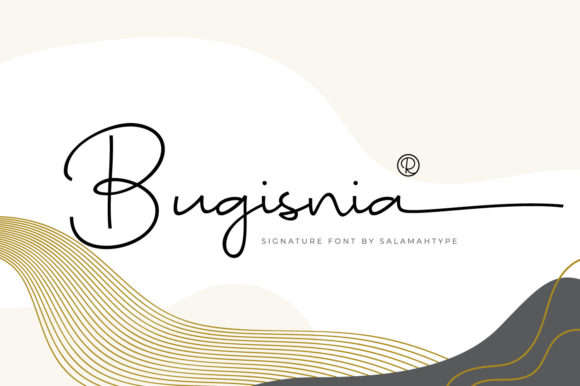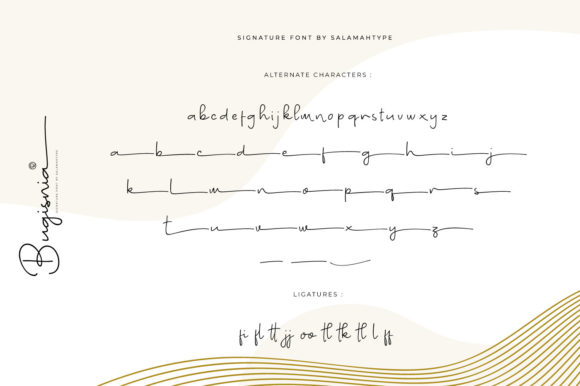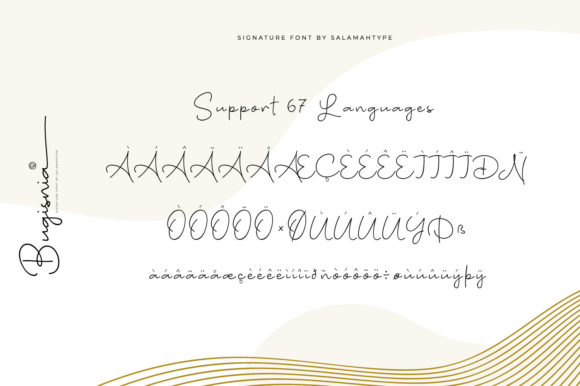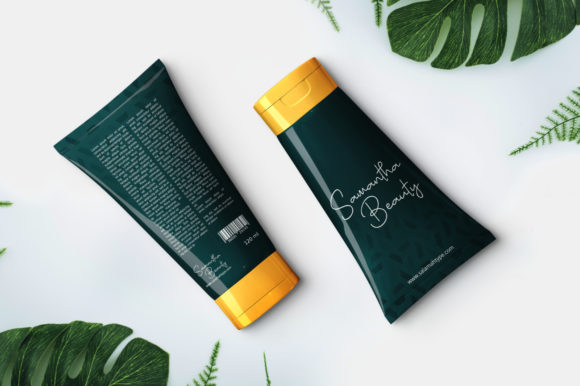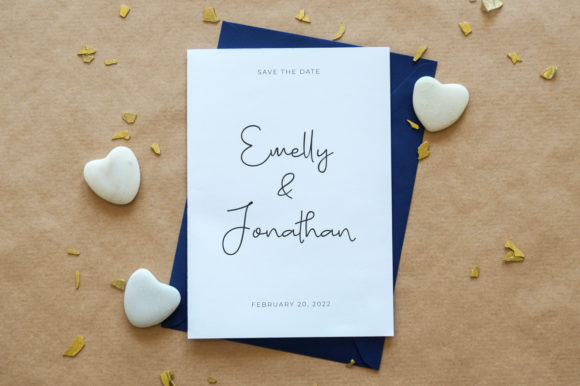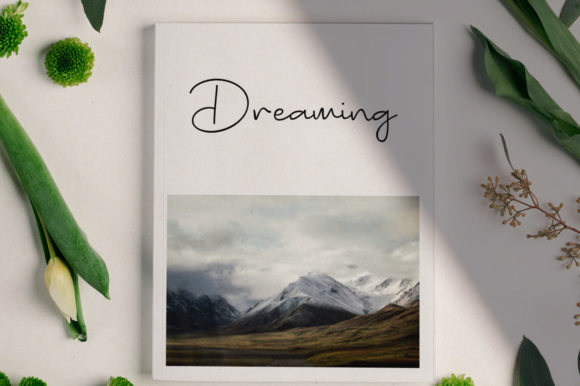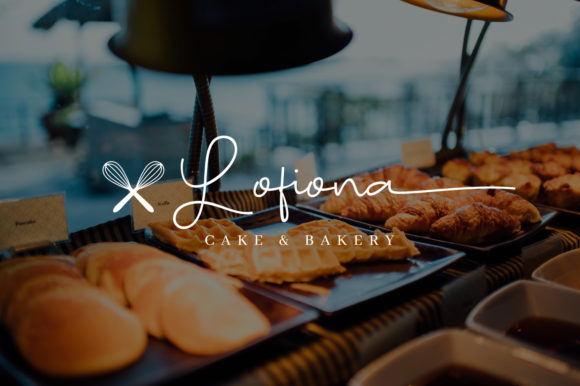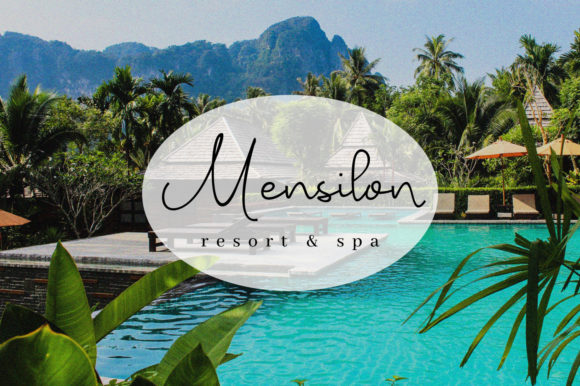
Bugisnia Script Font
About Bugisnia Script Font
Bugisnia Script is a thin lettered script, featuring a lovely flow. It is PUA encoded which means you can access all glyphs and swashes with ease! Use this font for your designs and explore its endless possibilities.